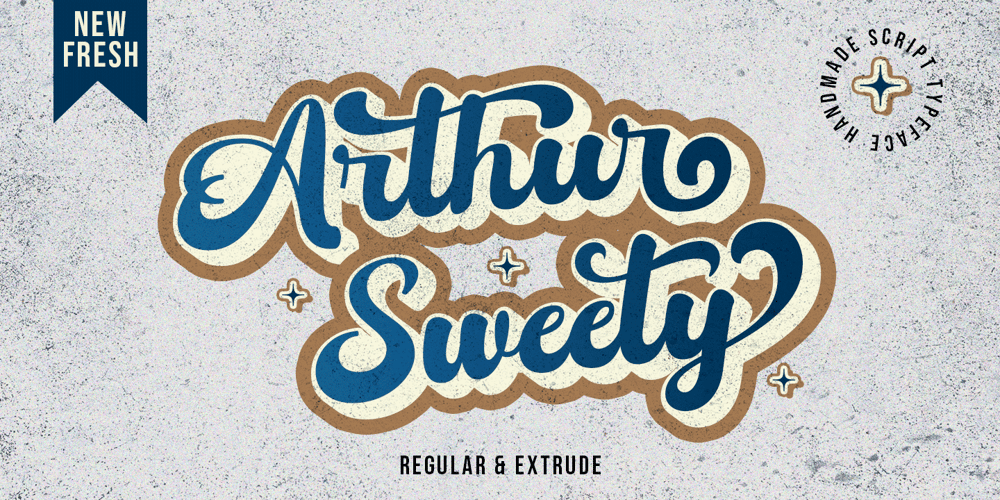
Arthur Sweety Font Family was designed by Sidiq Fahmi and published by Rotterlab Studio. Arthur Sweety contains 2 styles and family package options. Introducing …Arthur Sweety Script, a Modern classy fonts with strong styles and circle movement. It’s allowing you to create hand lettering is an instant. The idea is to help designers to combine and incorporate together of the fonts in your design creative work. Arthur Sweety Script Font is a hand-lettered bold and smooth script. This font is awesome for your creative project such as Logotype, Branding, Packaging, Merchandise, label, and much more.FEATURES :UppercaseLowercaseNumberPunctuationMultilingualPUA EncodeOpentypeThank You..